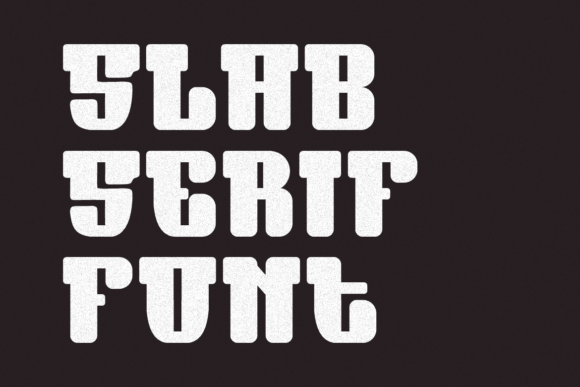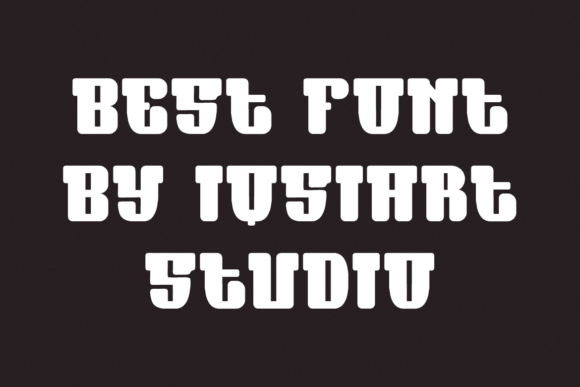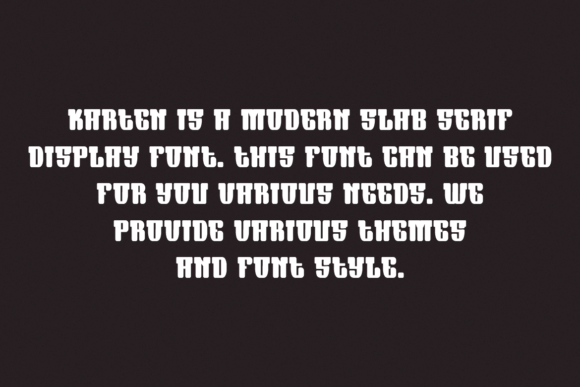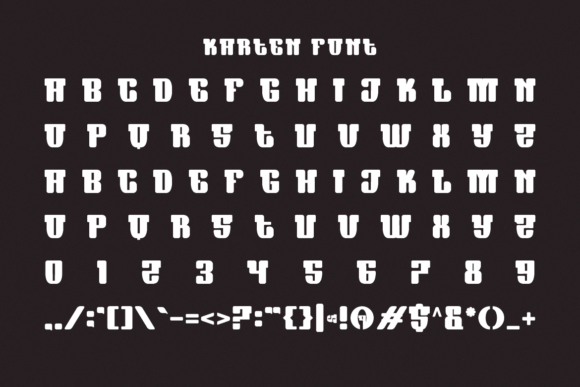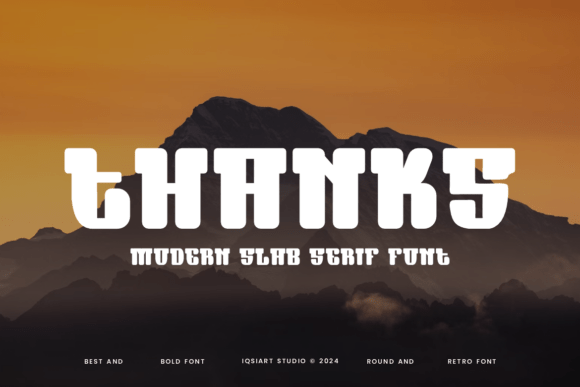
Introduction to Karten Font
You’ve spent hours brainstorming ideas for your creative project, pouring over sketches and color palettes, and finally landed on the perfect concept. But as you begin designing, you realize that the font you chose just isn’t doing it justice. The text looks dull, uninviting, and fails to convey the excitement of your idea.
That’s where the Karten Font comes in – a bold and assertive slab serif font that’s sure to elevate any creation. Whether you’re designing a logo, brochure, or website, this high-quality font is a valuable asset to have in your design arsenal. With its versatility and assertive feel, the Karten Font has the potential to transform your design and leave a lasting impression on your audience.
- Unique, hand-drawn style that adds a personal touch to any design or creative project.
- Perfect for use in graphic design, digital art, and other creative fields where a distinctive font is desired.
Honest Review: Karten Font
I recently stumbled upon the Karten Font, and I must say it’s been a game-changer for my creative projects. The font’s unique design and high quality make it an excellent addition to any design resource.
One of the things that stood out to me was the transparent background, which allows for seamless integration into various designs. The font itself is modern, clean, and highly versatile, making it perfect for a wide range of applications.
- Unique and modern design ✨
- High quality and crisp typography ✨
- Limited font styles and weights ⚠️
- No comprehensive character set for non-Latin languages ⚠️
Overall, I’m extremely impressed with the Karten Font. It’s a valuable addition to any design resource, and I’m excited to see how it will elevate my future creative projects. While there are some limitations, I believe they are minor compared to the font’s many strengths.
Karten Font is ideal for creative projects, such as graphic design, digital art, and typography. Its unique style and transparent background make it perfect for layering with other design elements. Use it to create eye-catching titles, headings, and body text for your designs.